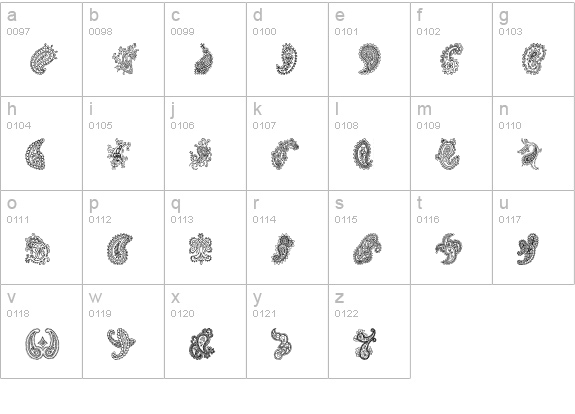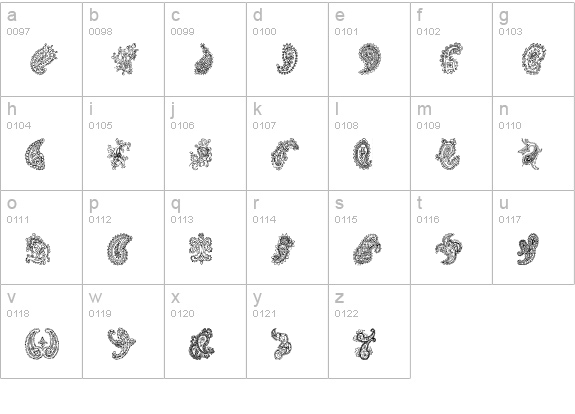
Paisley font is a beautiful and versatile typeface that will add a touch of elegance and sophistication to any design project. With its delicate curves and intricate details, this font captures the essence of traditional calligraphy while still maintaining a modern and contemporary feel. One of the best things about Paisley font is that it is completely free! You heard that right - this stunning font is freely available to download at FontsMarket.com. Whether you're a professional designer or a casual hobbyist, you can enjoy the benefits of this font without spending a single penny. The Paisley font is perfect for a wide range of design purposes. Its graceful and flowing strokes make it ideal for wedding invitations, elegant branding materials, and luxurious packaging designs. It can also be used to add a touch of sophistication to blog headers, social media graphics, and personal projects. This font comes in a variety of weights and styles, allowing you to choose the perfect one for your specific design needs. Whether you prefer a bold and dramatic look or a more subtle and refined appearance, Paisley font has got you covered. Don't miss out on this amazing opportunity to enhance your design projects with the exquisite Paisley font. Download it today for free at FontsMarket.com and let your creativity soar.